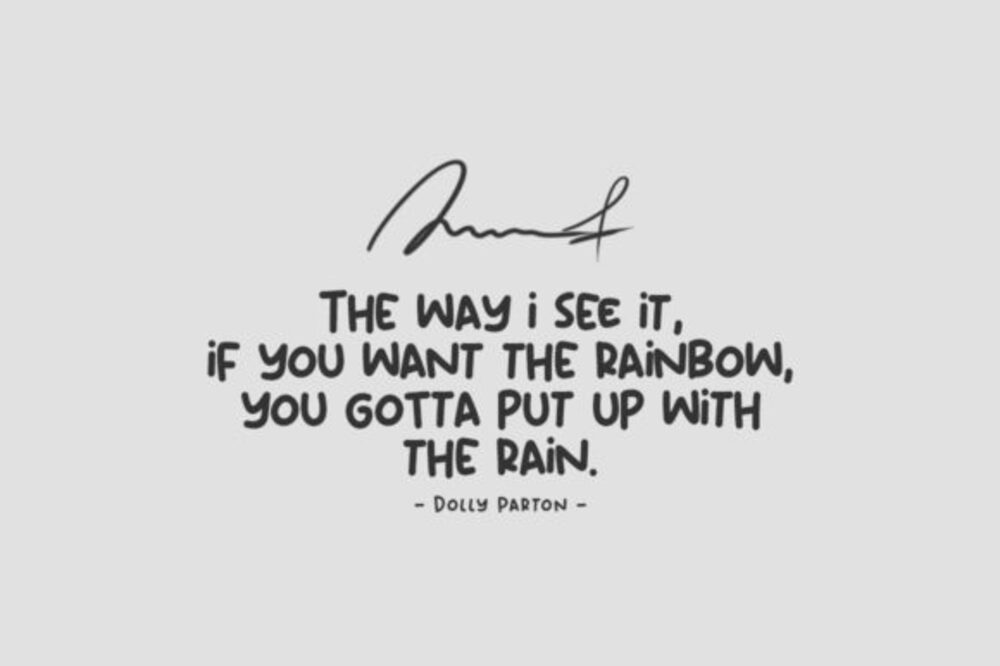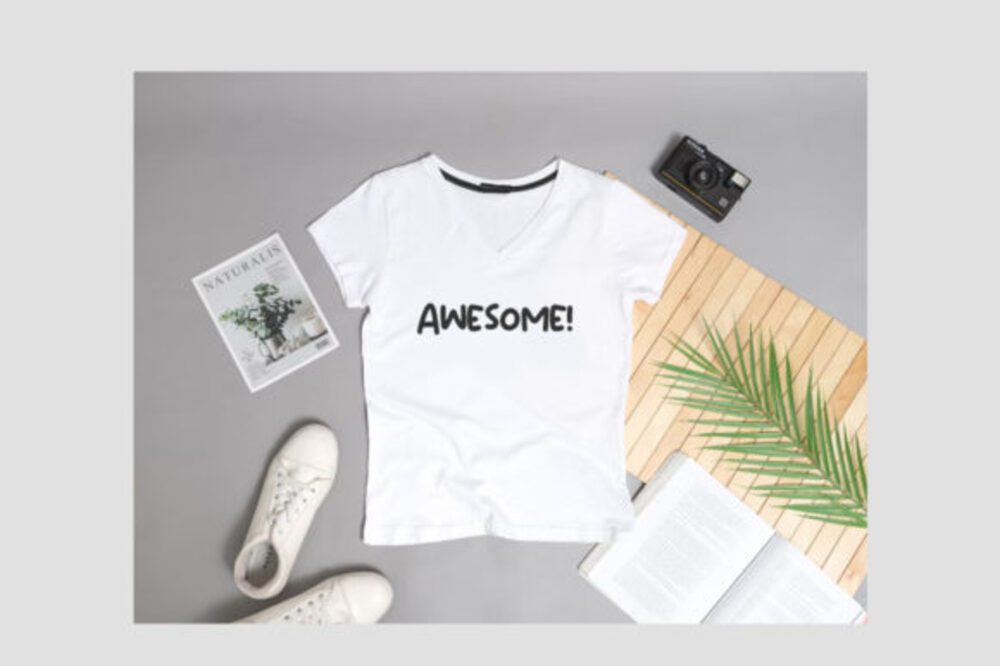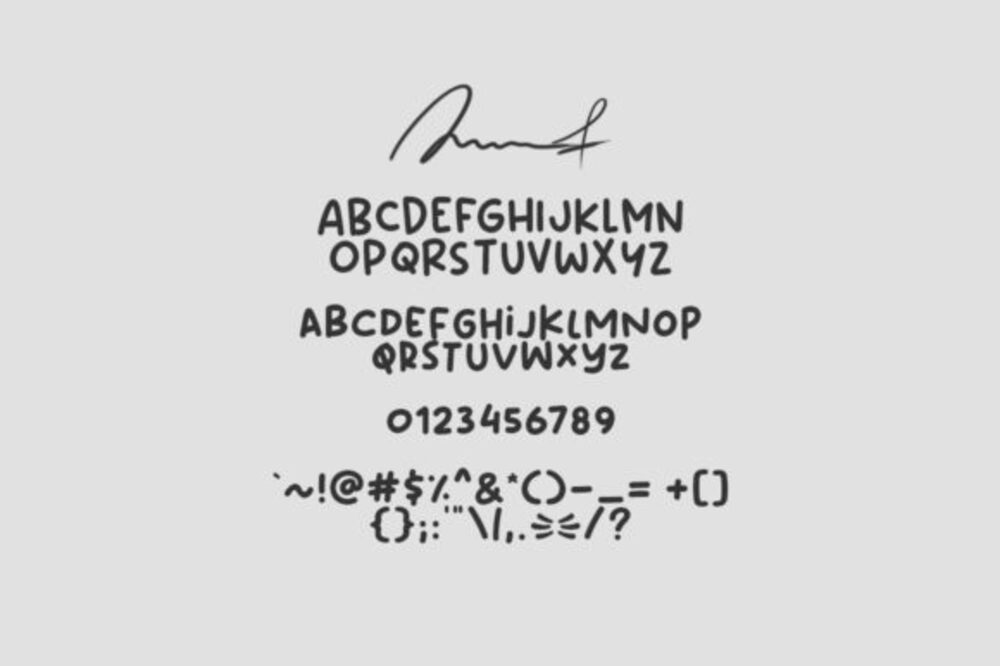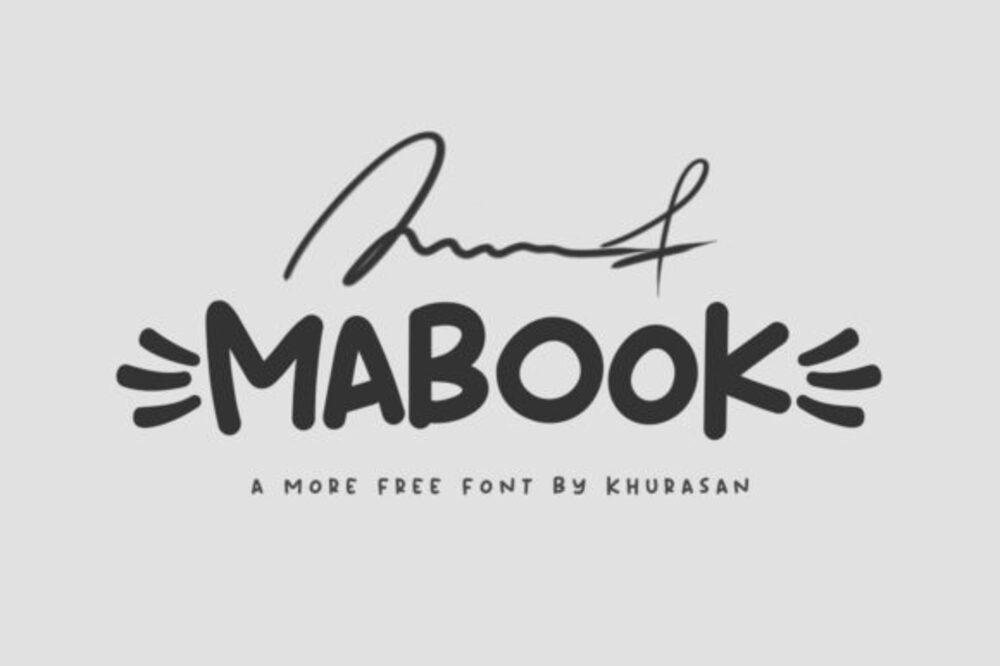
Mabook Font
Mabook Font is a sleek and contemporary typeface with a clean, minimalist design. Its bold lines and smooth curves exude professionalism and modernity, making it perfect for tech branding, corporate designs, websites, and presentations. Mabook balances style and readability, offering versatility for both digital and print projects. Its refined aesthetic adds a polished and sophisticated touch to any creative endeavor.